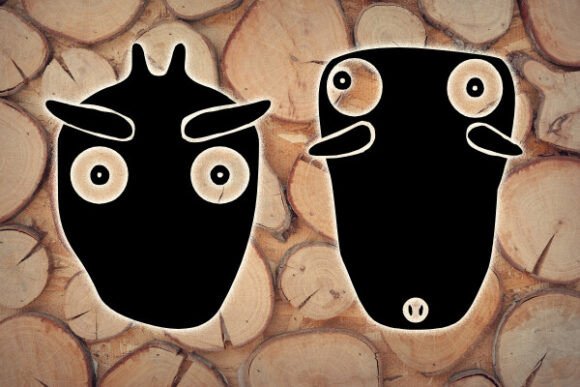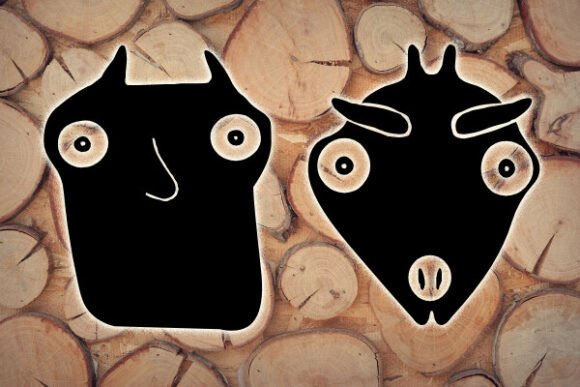
Introduction to Koti Font
Remember that moment when you’re brainstorming ideas for a creative project and you need the perfect visual element to make it pop? You scroll through your design resources, searching for something unique and eye-catching, and then – voilà! You stumble upon the perfect dingbat to elevate your design. For many designers, that moment of discovery is what makes their project truly shine. If you’re looking for a high-quality font that will add a touch of magic to your posters, flyers, or t-shirts, you’re in luck!
Introducing the Koti Font, a free download that’s about to become your go-to design resource. With its transparent background and sleek design, this font is perfect for adding a creative twist to any project. Whether you’re a seasoned designer or just starting out, the Koti Font is a valuable addition to your toolkit, offering endless possibilities for creative expression and design innovation.
Koti Font
- High-quality, versatile font suitable for creative projects and designs.
- Supports a wide range of languages, making it a valuable resource for designers and artists.
- Transparent background and layered design elements allow for easy customization and editing.
- Comes in a variety of sizes and resolutions, from small text to large headlines.
- Designed to be highly legible, even at small font sizes, making it ideal for digital designs and presentations.
- Perfect for graphic designers, digital artists, and anyone looking for a high-quality, free design resource.
Honest Review: Koti Font
As a designer, I’m always on the lookout for high-quality design resources to elevate my creative projects. Recently, I stumbled upon Koti Font, and I must say it’s been a game-changer for my designs. ✨
- One of the standout features of Koti Font is its high-quality design, making it perfect for a wide range of creative projects.
- I appreciate the transparent background, which allows for seamless integration into my designs.
- The font’s clean and modern aesthetic makes it an excellent choice for contemporary designs.
However, I did encounter a few limitations while using Koti Font. ⚠️
- The font may not be suitable for projects that require a more vintage or distressed look.
Overall, I’m thoroughly impressed with Koti Font and would highly recommend it to fellow designers. Its high-quality design, free download option, and transparent background make it an excellent addition to any design resource library.
Koti Font
Koti Font is a high-quality design resource available for free download. It’s perfect for your next creative project, whether it’s a graphic, logo, or presentation. With a transparent background, you can easily integrate it into your design without any distractions.
Tips for Getting the Most Out of Koti Font
Here are some tips to help you get the most out of Koti Font:
- Combine Koti Font with other design elements to create a cohesive design.
- Use the transparent background to create a sense of depth and dimension in your design.
Koti Font is perfect for:
- Presentation design
- Document design
Montserrat is a popular sans-serif font designed for digital use, offering a high-quality design and a wide range of font sizes and styles. It is perfect for creative projects requiring a clean and modern look. When to use: ideal for digital designs, websites, and mobile apps. Compared to Koti Font, Montserrat has a more geometric and urban look.
Lato is a free, high-quality sans-serif font designed for digital use, offering a wide range of font sizes and styles. It is perfect for creative projects requiring a clean and modern look. When to use: ideal for digital designs, presentations, and websites. Compared to Koti Font, Lato has a more elegant and sophisticated look.